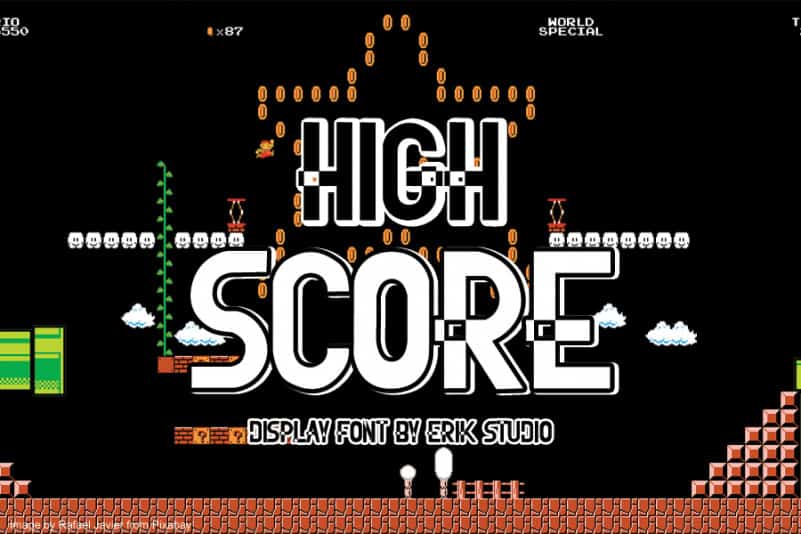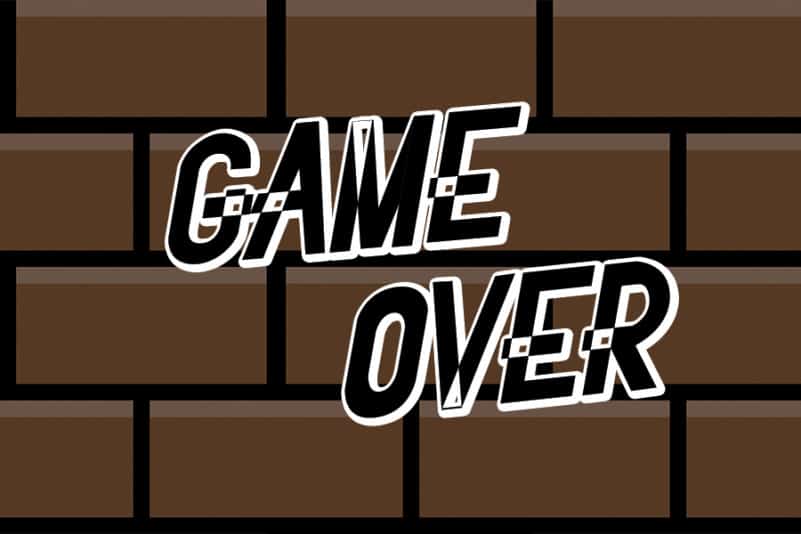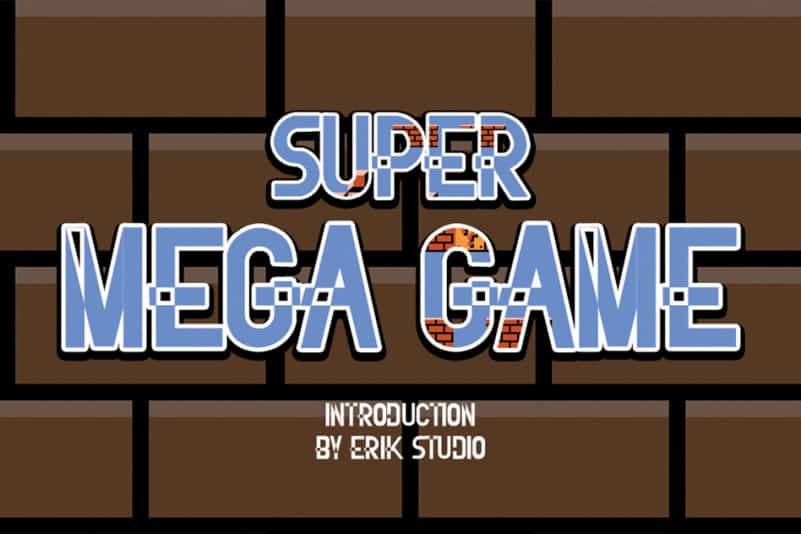
Super Mega Game Display Font
Super Mega Game Display Font is a bold, thick lettered and modern display font. Expertly designed to make your creation look out of this world, this font has the potential to take your creative ideas far further.